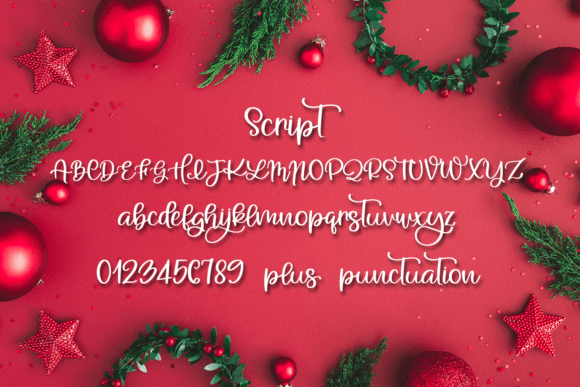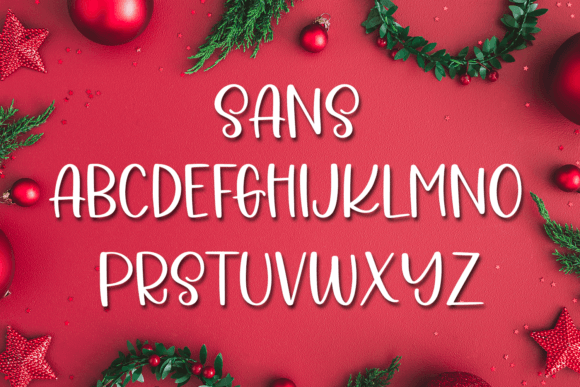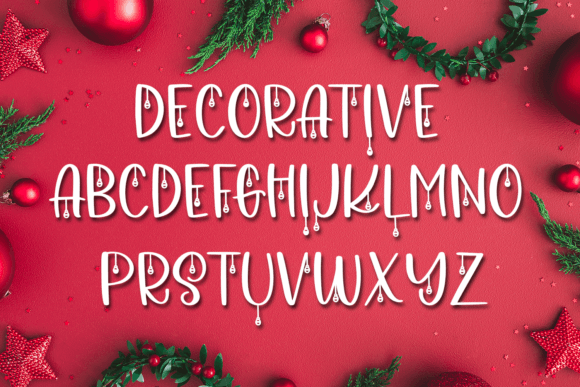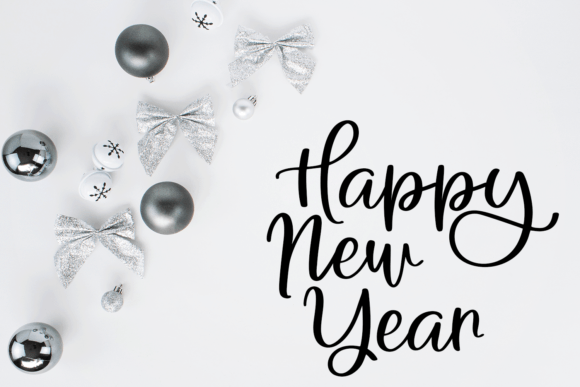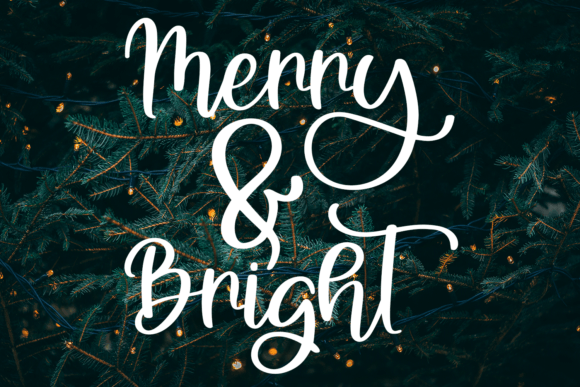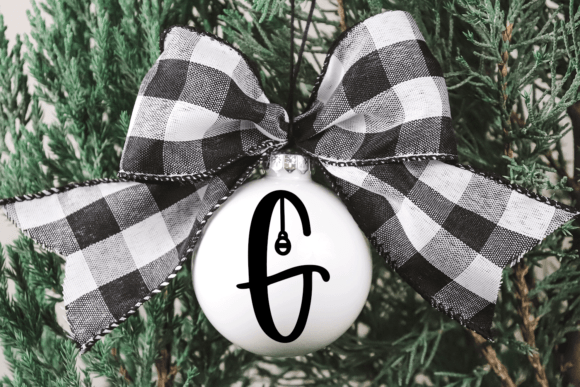
A Holiday Story Font: The Perfect Addition to Your Design Collection
Are you tired of using the same old fonts in your designs? Look no further! Introducing A Holiday Story, a quirky handcrafted font that’s sure to add a touch of personality to your projects. In this article, we’ll dive into the features and benefits of A Holiday Story, and explore how it can elevate your designs to the next level.
What is A Holiday Story Font?
A Holiday Story is a unique and charming font that’s perfect for designers and crafters looking to add a personal touch to their work. This handcrafted font is designed to bring a sense of warmth and coziness to your designs, making it ideal for a wide range of projects.
Perfect for Artisanal Projects
If you’re a crafter or maker who uses Cricut or Silhouette machines, A Holiday Story is a must-have font. Its quirky and charming design makes it perfect for creating artisanal projects that stand out from the crowd. Whether you’re making custom signs, decorations, or gifts, this font is sure to add a touch of personality to your work.
Enhance Your SVG Design Business
If you’re an SVG designer, A Holiday Story is a great addition to your font collection. Its unique design and PUA encoding make it easy to use and customize, allowing you to create stunning designs that will set you apart from the competition.
Distinctive Logos and Branding Efforts
Your logo and branding are essential to establishing your identity and attracting customers. A Holiday Story can help you create a distinctive and memorable brand image. Its quirky design makes it perfect for businesses that want to stand out and show off their personality.
Digital Planner Designs and Apps
If you’re a digital planner designer or create content for apps like Goodnotes, A Holiday Story is a great font to use. Its clean and elegant design makes it perfect for creating digital planners, journals, and other printable designs.
Website and Blog Designs
A Holiday Story can also be used to enhance your website and blog designs. Its unique design makes it perfect for headings, titles, and other design elements that need to stand out. You can use it to create a cohesive brand image and make your website or blog more visually appealing.
Sleek Print Designs
A Holiday Story is not just limited to digital designs. Its elegant design makes it perfect for print designs such as magazines, flyers, brochures, and more. You can use it to create stunning print materials that will grab attention and leave a lasting impression.
Header Elements and Personalized Appeal
One of the best things about A Holiday Story is its handwritten appeal. It’s perfect for creating header elements that need a personal touch. Whether you’re designing a website, blog, or social media graphic, this font is sure to add a touch of personality to your design.
Motivational Quote Graphics
A Holiday Story is also great for creating motivational quote graphics for social media. Its clean and elegant design makes it perfect for creating graphics that are both inspiring and visually appealing.
Delicate Graphic Designs for Women’s T-Shirts and Clothing
If you’re a designer who creates graphic designs for women’s t-shirts and clothing, A Holiday Story is a great font to use. Its delicate design makes it perfect for creating stunning graphics that will look great on a variety of clothing items.
One of the best things about A Holiday Story is that it’s PUA encoded. This means that you can access all of the amazing glyphs and ligatures with ease. You don’t have to worry about complicated font installation or editing processes. Simply install the font and start using it right away.
In conclusion, A Holiday Story is a versatile and charming font that’s perfect for designers and crafters. Its quirky design and PUA encoding make it easy to use and customize, allowing you to create stunning designs that will set you apart from the competition. Whether you’re working on artisanal projects, SVG designs, logos, digital planners, or print materials, A Holiday Story is a great addition to your font collection.